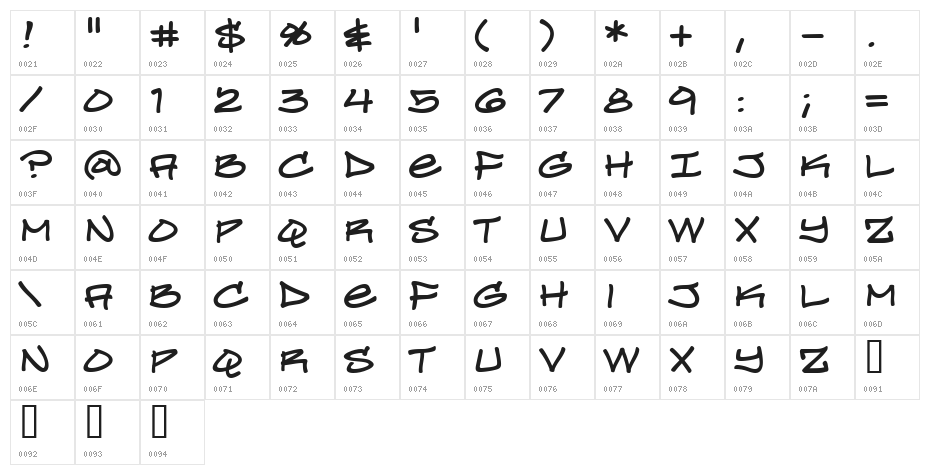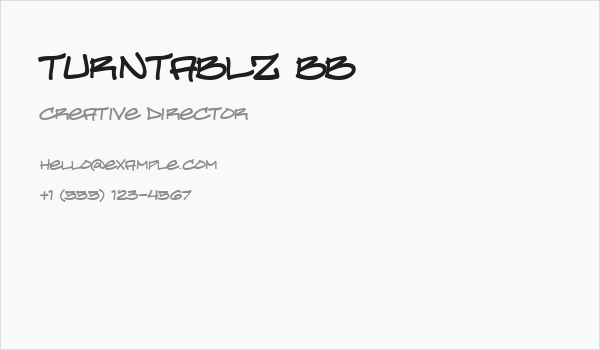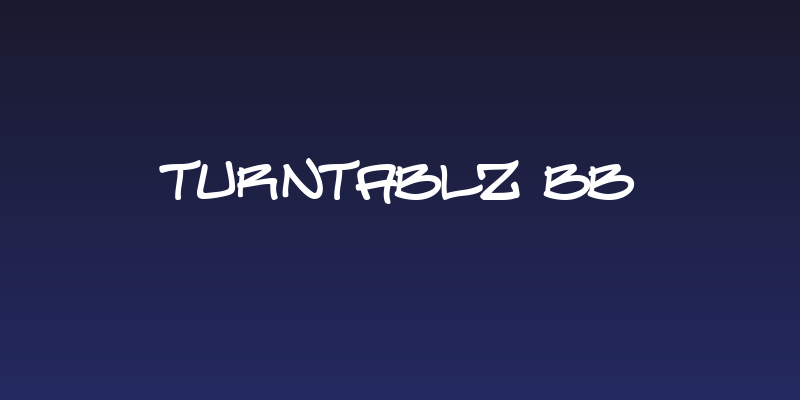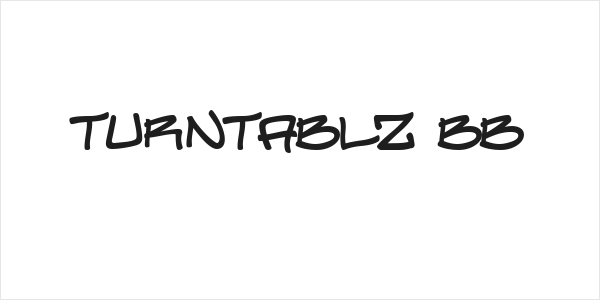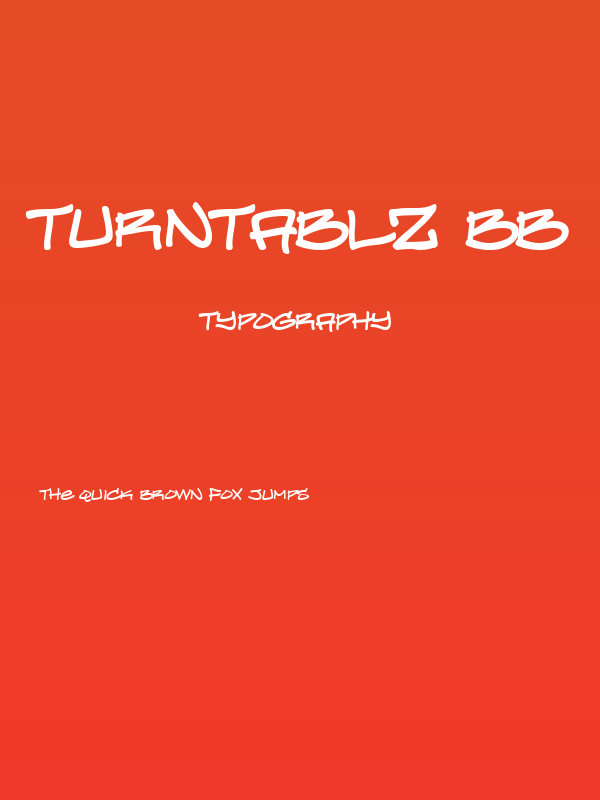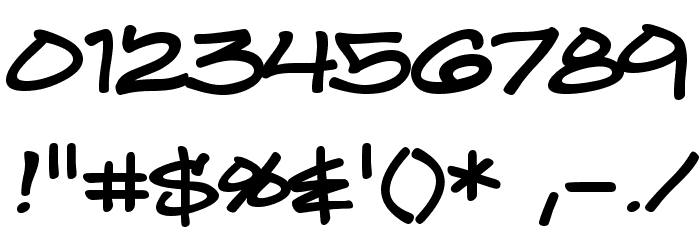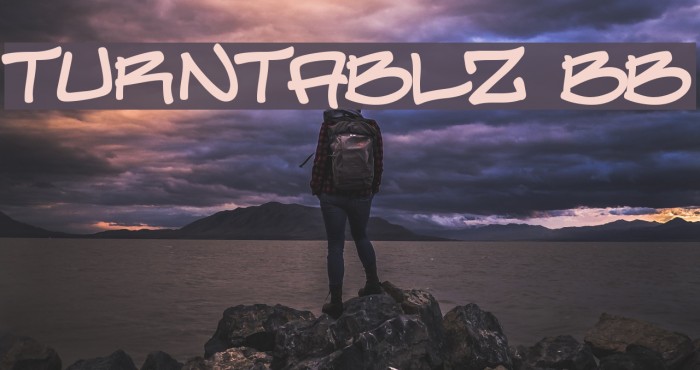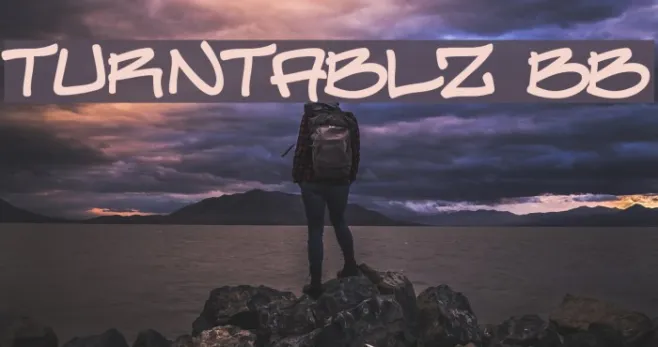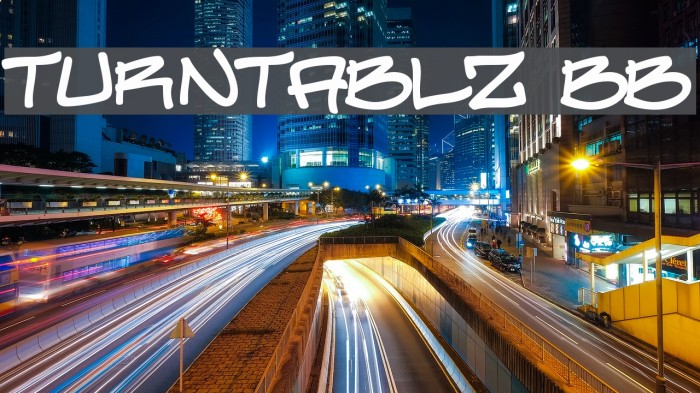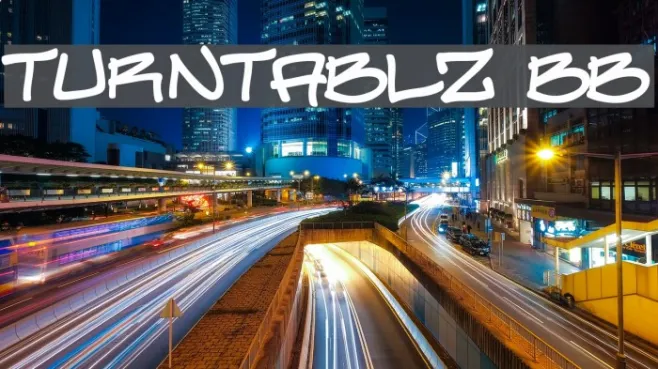
Turntablz BB Font
Turntablz BB Description
This font features a bold, graffiti-inspired style with a playful and energetic vibe. The characters are designed with a hand-drawn appearance, showcasing a dynamic flow and irregularity that adds to its urban aesthetic. The uppercase and lowercase letters maintain a consistent style, with rounded edges and a slight slant, giving the text a sense of movement. The numbers and special characters follow the same design principles, ensuring a cohesive look across all elements. This font is ideal for projects that require a casual, street-art feel, making it perfect for posters, album covers, and creative branding.
| Overall Style | Urban, Playful, Energetic |
| Proposed Projects | Ideal for street art-themed designs, music album covers, posters, and creative branding. |